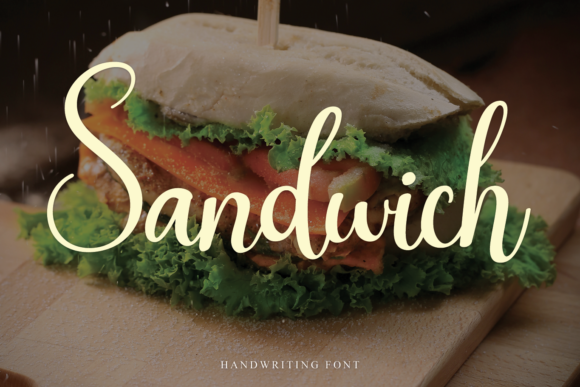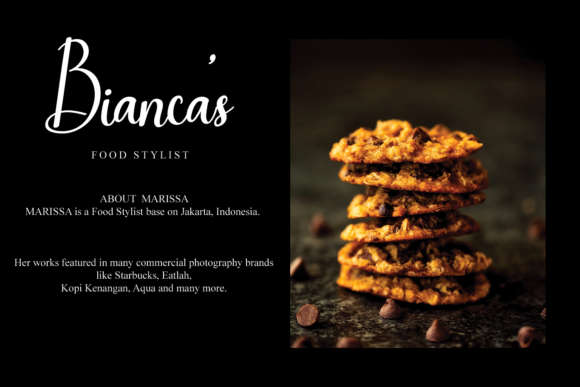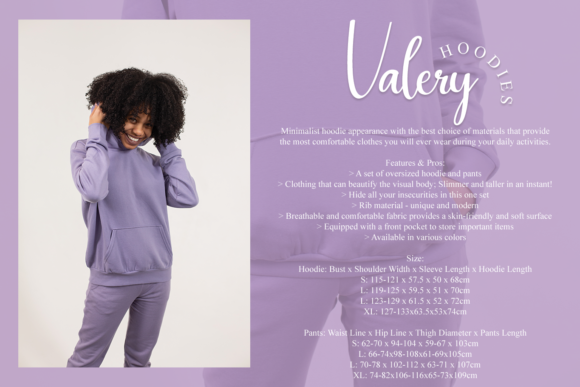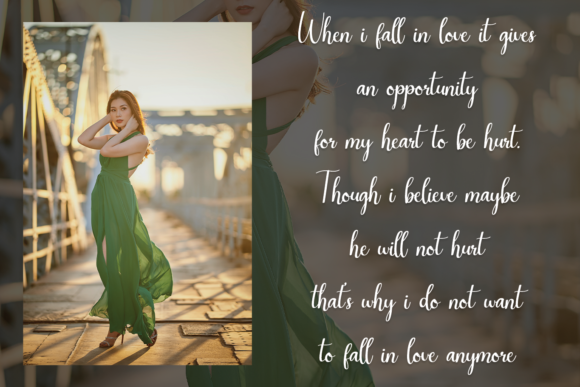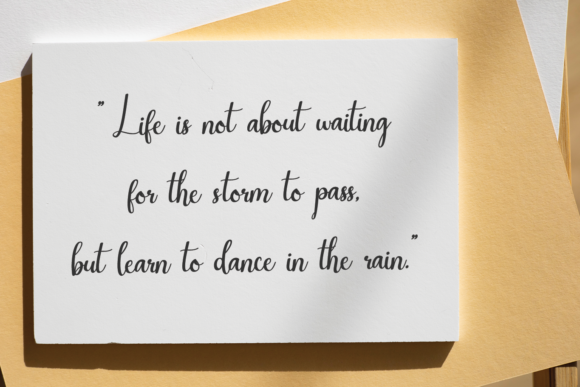
Sandwich Font
About Sandwich Font
Sandwich is a beautiful and refined script font. It has a classy, elegant, and modern look that can be used for logos, branding, invitations, stationery, wedding designs, social media posts, and much more!